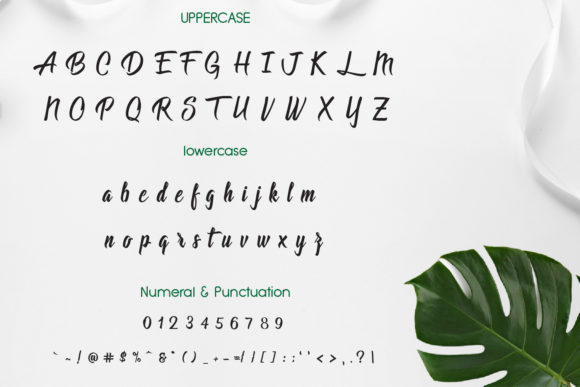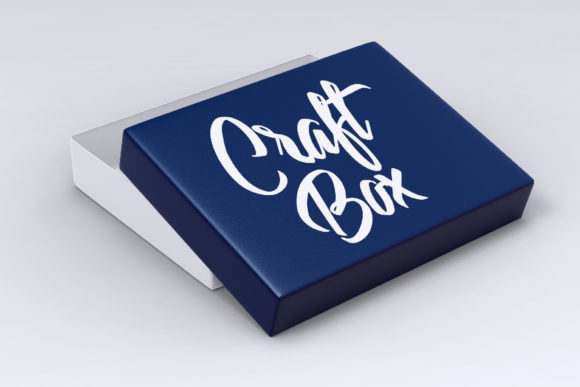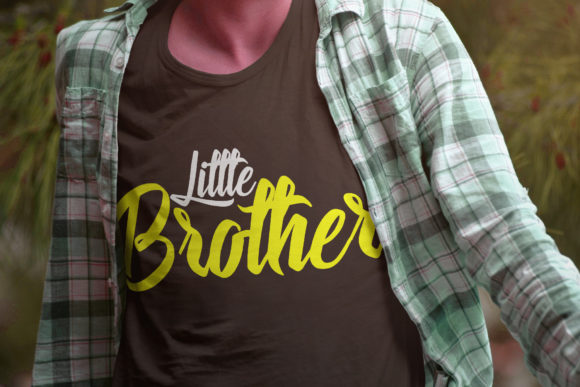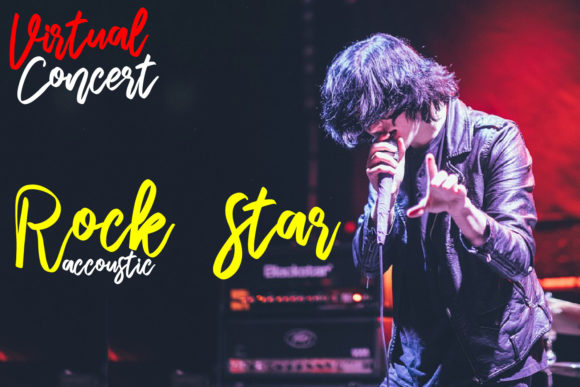
About Hanleys Font
Hanleys is a delicate and elegant handwritten font. Its distinct and well balanced letters make this font a masterpiece. Fall in love with its incredibly versatile style and use it to create spectacular designs!